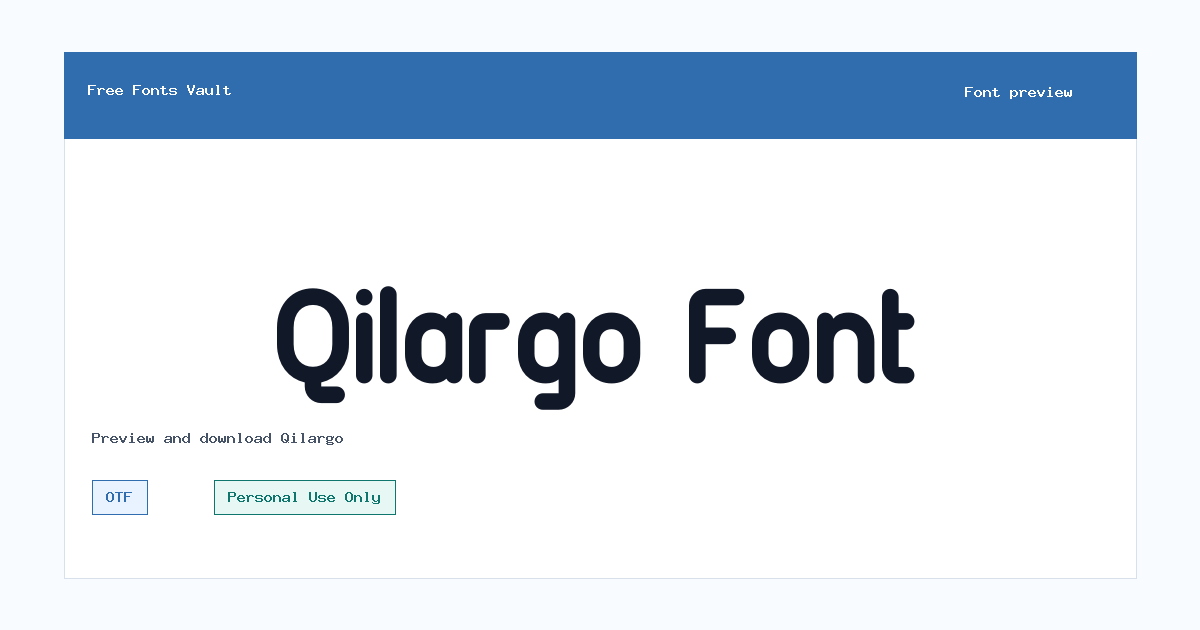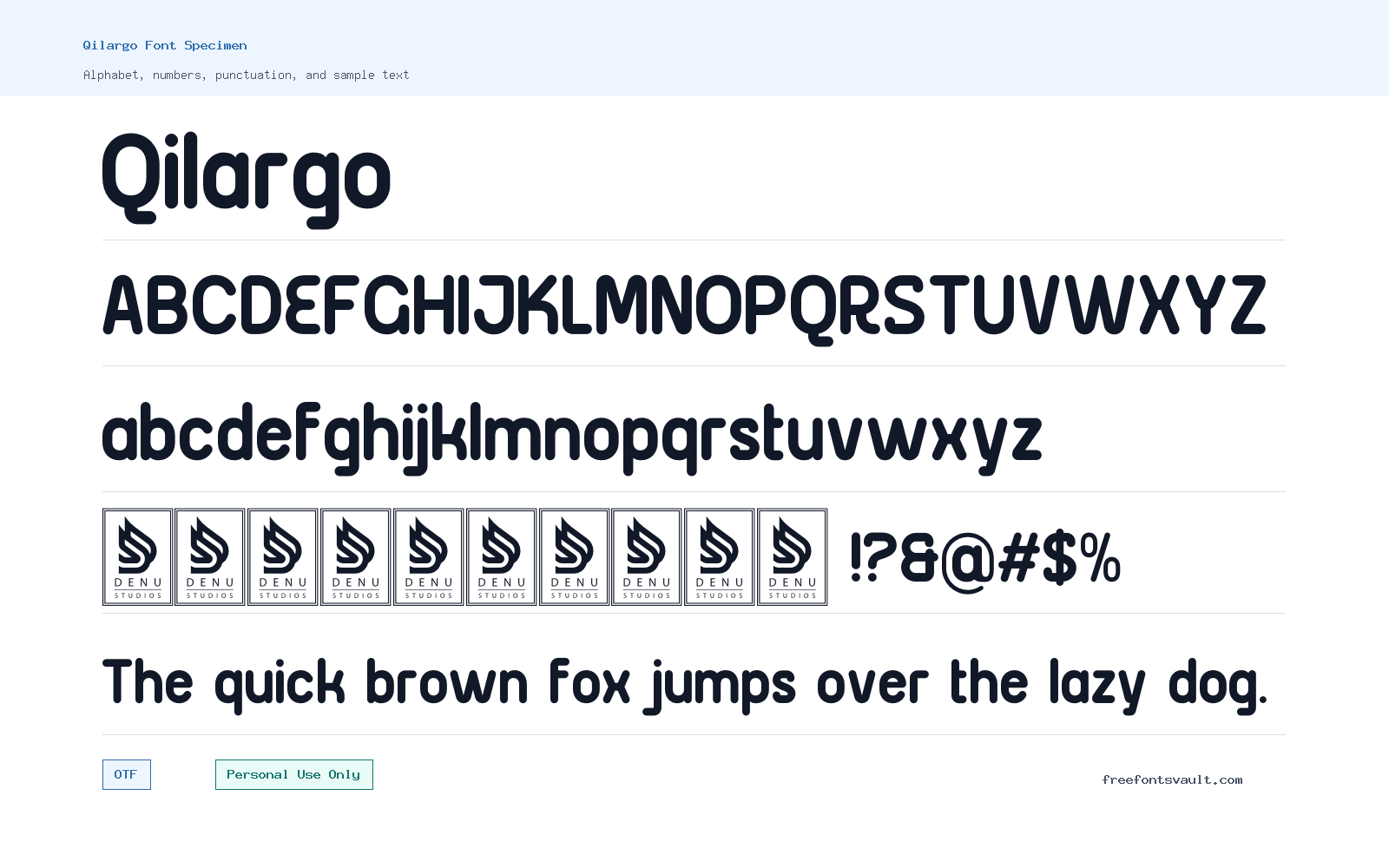
Qilargo
Qilargo Font
• Designer Dede Nugraha
Qilargo is a clean sans serif font with a demo OTF file for personal-use projects. It is a good candidate to test when you need simple, modern lettering for titles, display text, mockups, and visual drafts where clarity matters.
About Qilargo Font
Qilargo keeps the focus on straightforward sans serif shapes rather than decorative detail. That makes it useful for visitors who want a font they can quickly preview in different words, names, headings, or layout ideas. Because the downloadable file is marked as a demo and the license information points to Personal Use Only, it is best treated as a trial or personal-project font unless you confirm broader rights from the designer or license page.
• Regular style with normal weight, suitable for previewing headings and short display text
• Designed by Dede Nugraha, with a designer link to Grace Type Studio
• Simple letterform direction that can work well in clean layout tests
Qilargo is credited to Dede Nugraha. The designer URL points to Grace Type Studio. The font file information also references High-Logic / Made with FontCreator, which appears to identify the font creation software rather than a separate creative credit.
What kind of projects suit Qilargo best?
Qilargo is best tested in short, clear settings such as names, headings, posters, social graphics, web mockups, and branding explorations.
Should I use Qilargo for long paragraphs?
Test it carefully before using it in body text. It may be more practical for headings and short display lines, while a more neutral reading font can handle longer text.